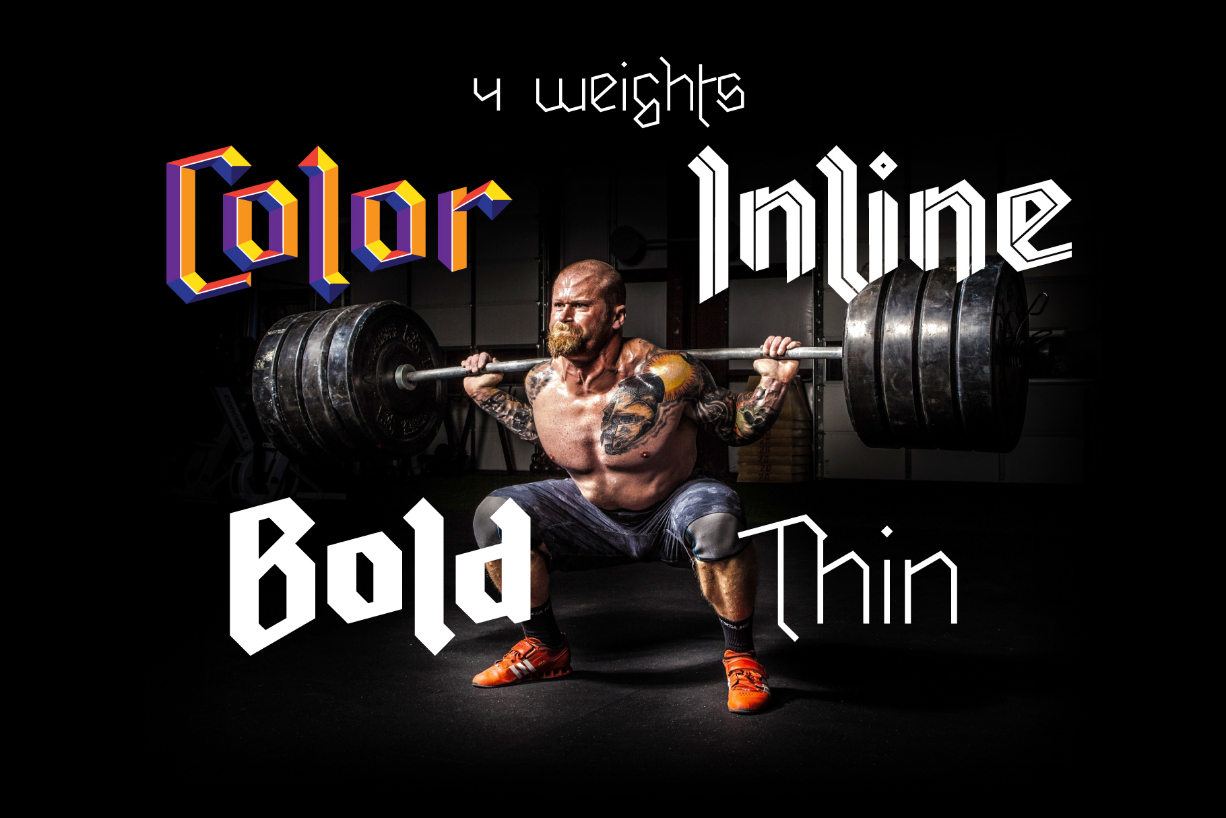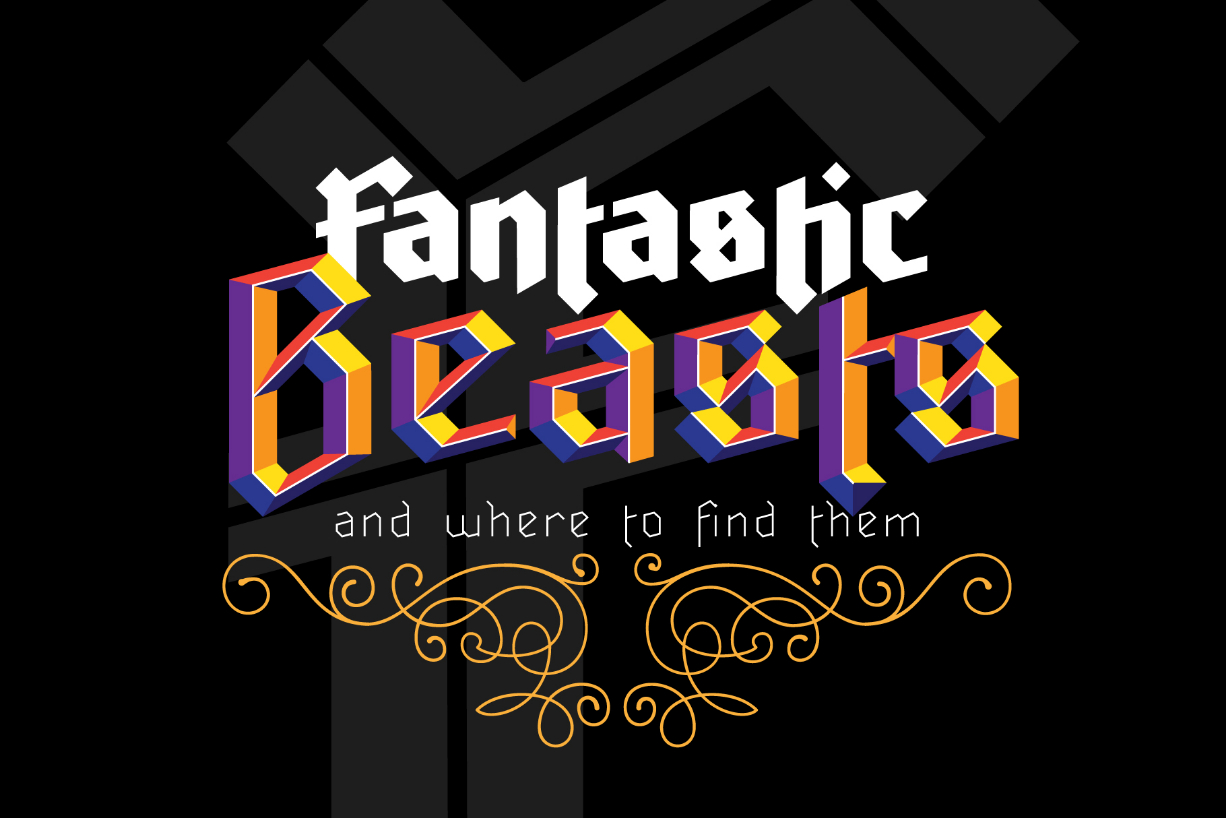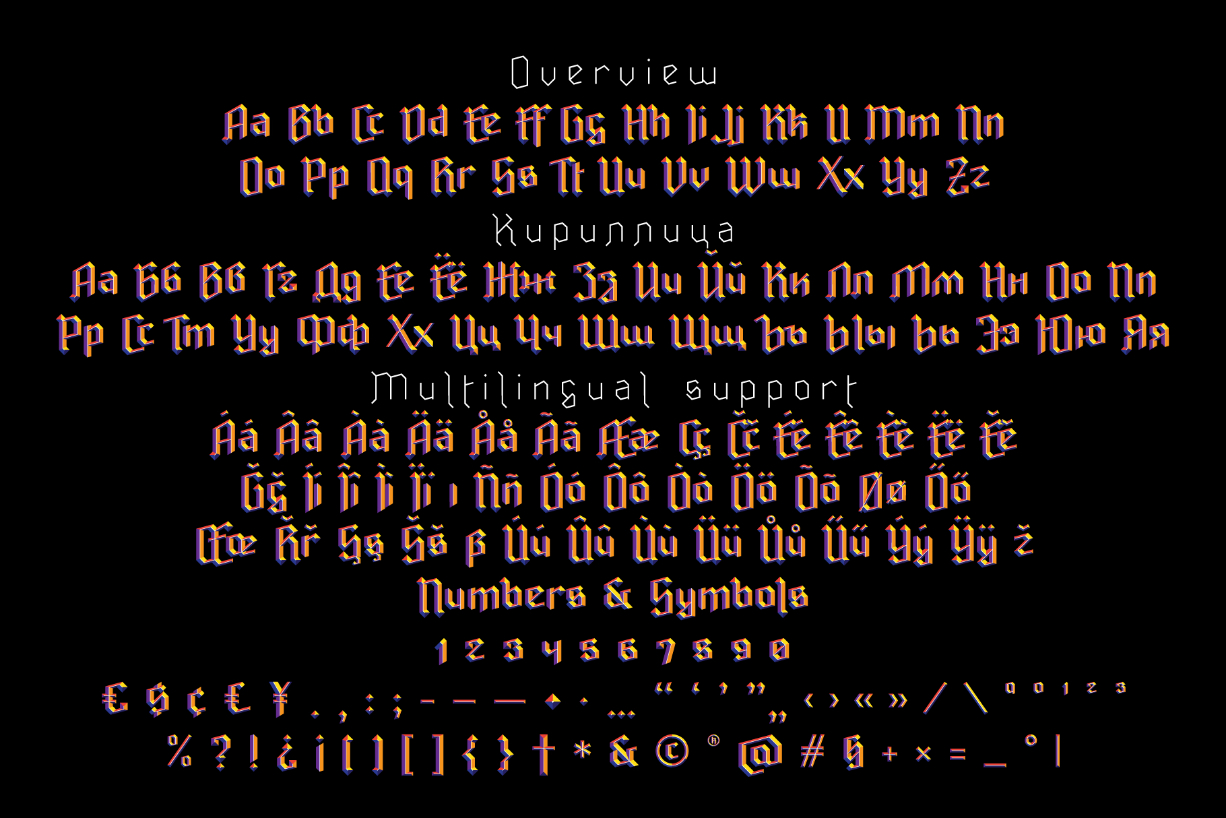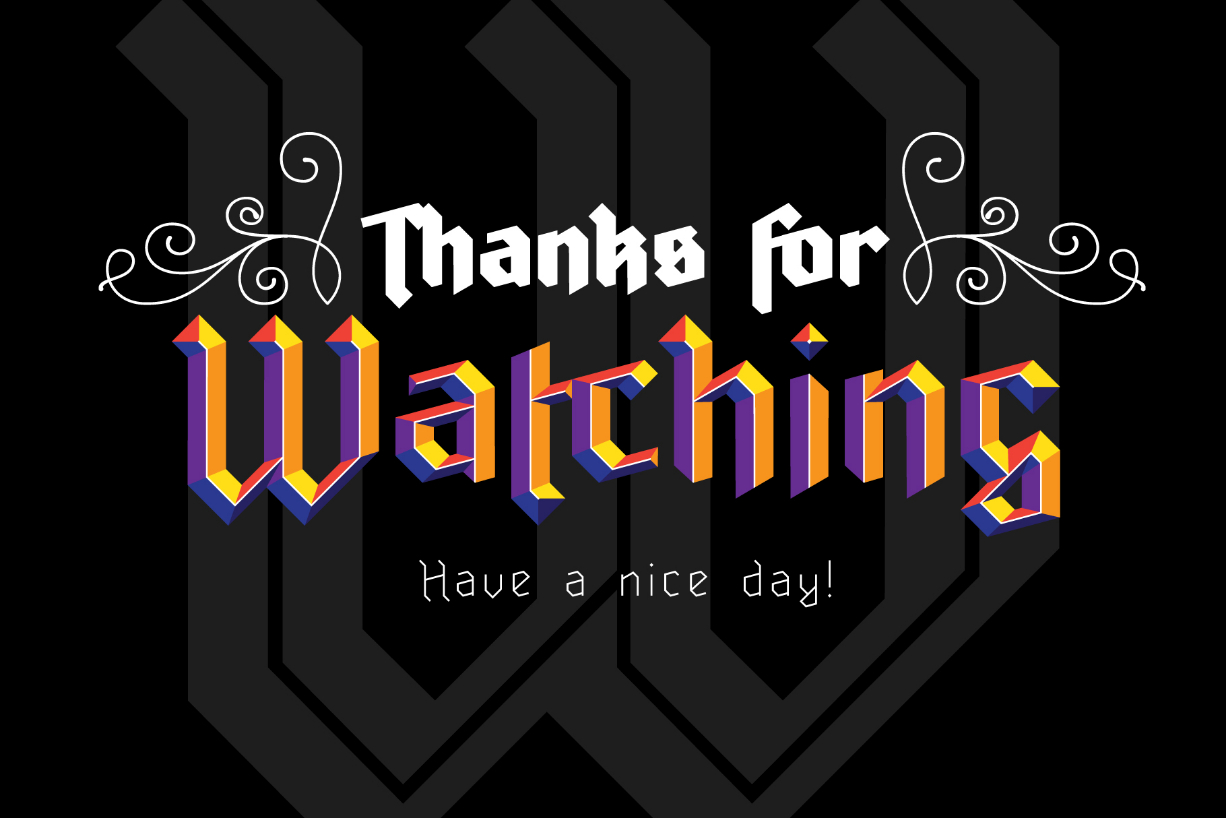
Ravenholm Family Font
About Ravenholm Family Font
The Ravenholm is a new, modern, Gothic font family. It comes in a bold, inline, thin and color version. It looks amazing as a stand alone and as full text blocks.